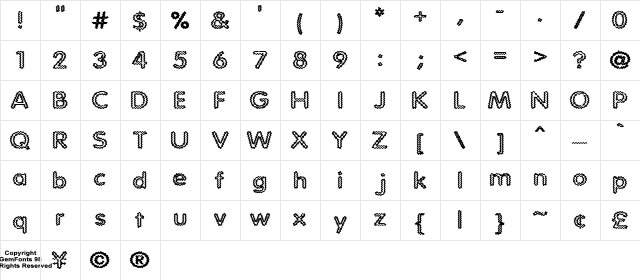
Static Charge Regular
Design Context for Static Charge Typeface
Static Charge takes a measured approach to typography — its balanced proportions and neutral character make it a reliable workhorse for both digital and print work.